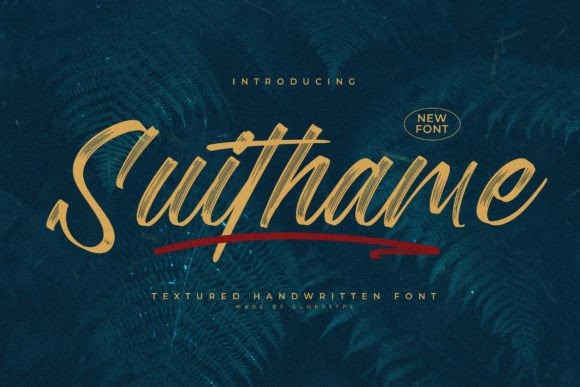
Suithame Font
Suithame Font – Textured Handwritten Font , from Glorytype Studio, suitable for any projects such as: logos, branding projects, homeware designs, product packaging, mugs, quotes, posters, shopping bags, t-shirts, book covers, name card, invitation cards, greeting cards, label, photography, watermark, special events, and all your other lovely projects that need a beautiful script taste.